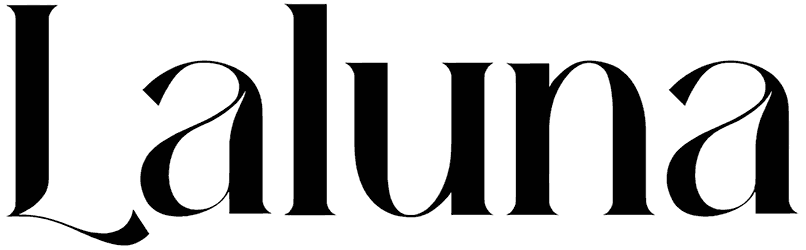
Laluna Font
For the most splendid outcome, go with the fancy letters of Laluna, and they will never give you a reason to worry about appearing rich enough. With that in mind, you have every right to choose this modern font for your wedding business cards, jewelry websites, and similar endeavors.
It won’t just boost the prestige surrounding your texts, but this chic logo font also earns trust and respect for your business. Isn’t that what you need in your branding projects?